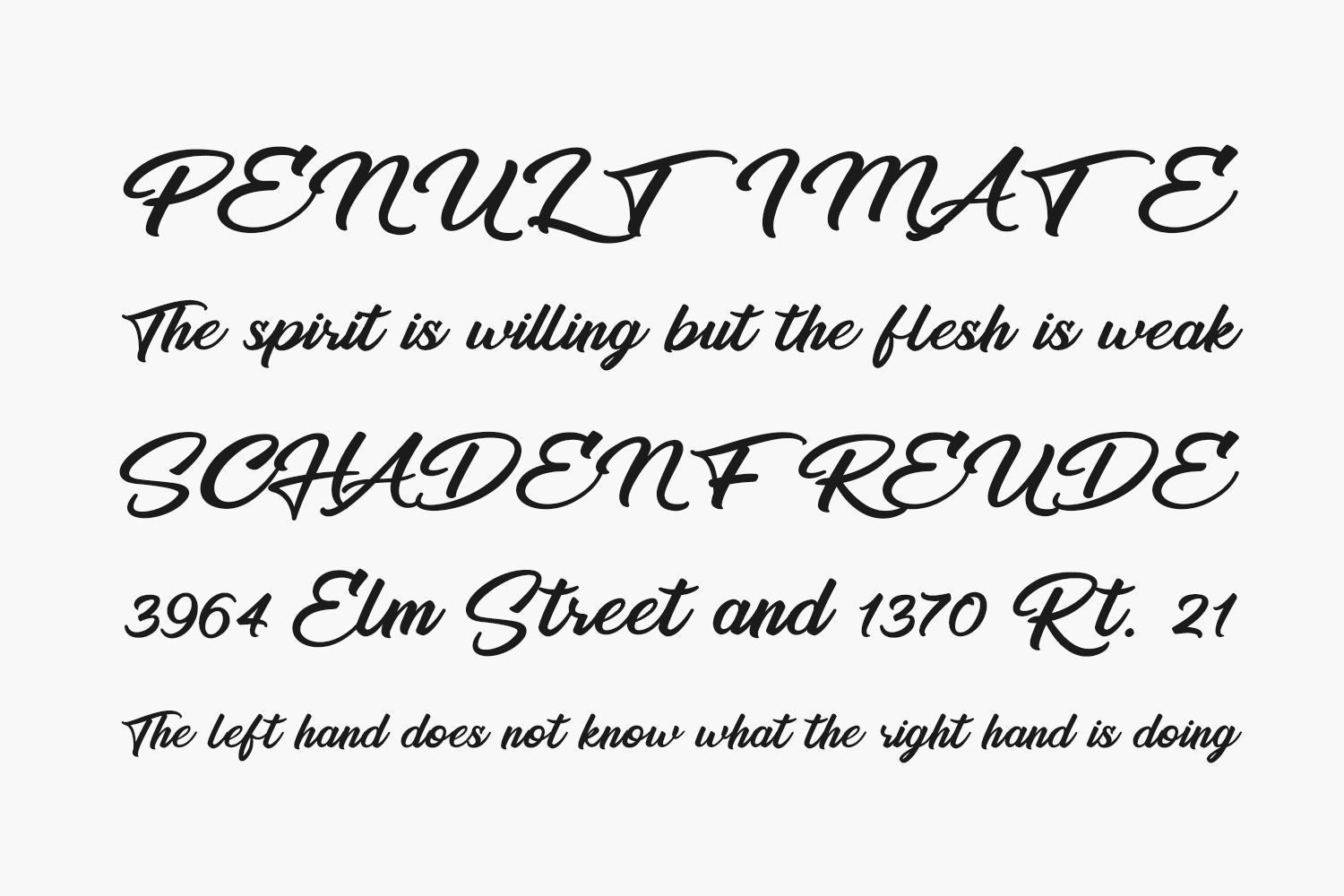
Introducing the exquisite Routtage Free Font! With its intricate and artistic lettering, this font captures the essence of classic calligraphy and adds a contemporary twist to create a truly unique and stunning display. Whether you’re designing logos, posters, or branding materials, the Routtage Display Script Calligraphy Free Font is the perfect choice to elevate your work to a level of sophistication and elegance that is sure to impress.
Designed by Ronny Studio